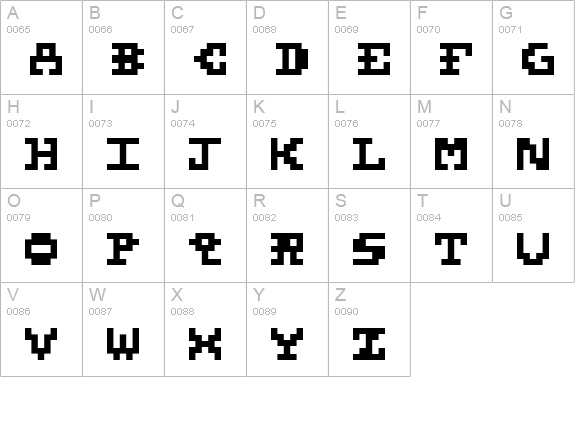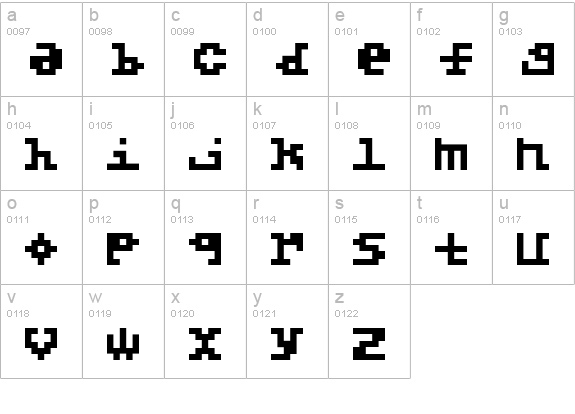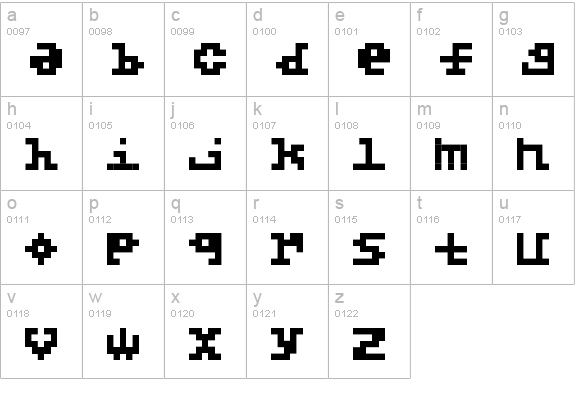
5X5 Basic Font Details
The 5X5 Basic font is a sleek and modern typeface that is perfect for adding a contemporary touch to your designs. With its clean lines and geometric shapes, this font exudes a sense of sophistication and professionalism. Whether you're working on a logo, website, or print project, the 5X5 Basic font is sure to make a statement. Best of all, this font is available for free download at FontsMarket.com. Simply visit the website to access this versatile font and enhance your creative projects with its stylish aesthetic. Don't miss out on the opportunity to elevate your designs with the 5X5 Basic font today!